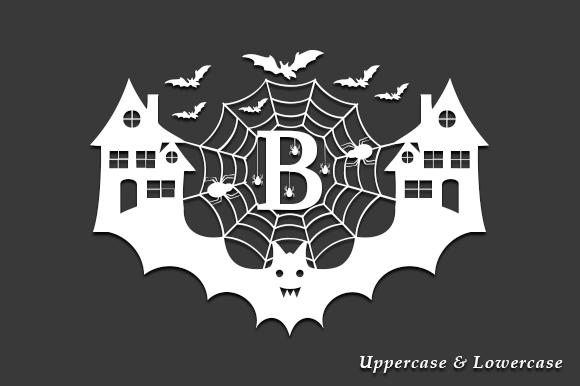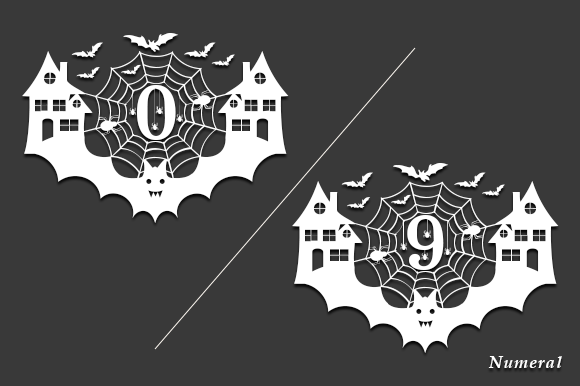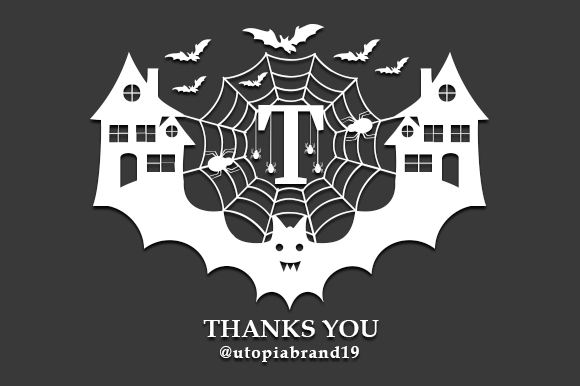
Happy Halloween Font: Add a Spooky Touch to Your Designs
Halloween is just around the corner, and it’s time to get creative with your designs. Whether you’re a designer, crafter, or simply a Halloween enthusiast, you need a font that will make your projects stand out. That’s where the Happy Halloween font comes in – an incredibly unique and spooky decorative font that’s perfect for adding a touch of eeriness to your Halloween designs.
What Makes Happy Halloween Font So Special?
The Happy Halloween font is designed to make your Halloween designs instantly come to life. Its unique and spooky design features letters that are perfect for creating creepy and eye-catching titles, headings, and captions. The font is highly versatile and can be used for a wide range of design projects, from Halloween party invitations and decorations to social media graphics and more.
Key Features of Happy Halloween Font
• Unique and Spooky Design: The Happy Halloween font features a one-of-a-kind design that’s sure to make your designs stand out.
• Highly Versatile: The font can be used for a wide range of design projects, from digital graphics to print materials.
Ideas for Using Happy Halloween Font
• Halloween Party Invitations: Create spooky and eye-catching invitations that will set the tone for your Halloween party.
• Social Media Graphics: Use the Happy Halloween font to create creepy and engaging social media graphics that will grab the attention of your followers.
• Halloween Decorations: Add a touch of eeriness to your Halloween decorations with signs, banners, and other materials featuring the Happy Halloween font.
• Craft Projects: Use the Happy Halloween font to add a spooky touch to your craft projects, such as Halloween-themed cards, gift tags, and more.
The Happy Halloween font is a unique and spooky decorative font that’s perfect for adding a touch of eeriness to your Halloween designs. With its highly versatile design and easily customizable features, it’s the perfect choice for designers, crafters, and Halloween enthusiasts alike. So why wait? Download the Happy Halloween font today and start creating spooky and eye-catching designs that will make your Halloween projects stand out.